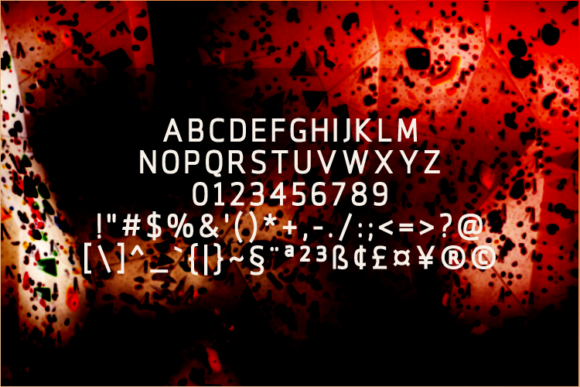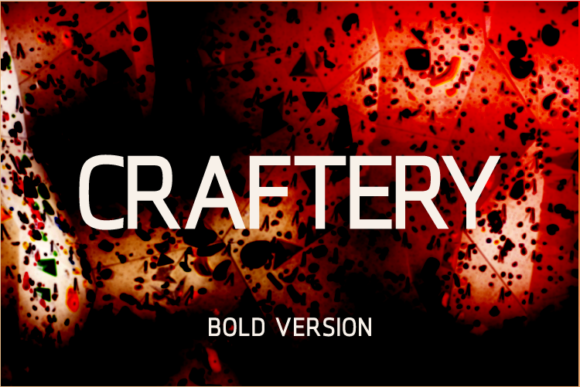
Craftery Bold Font: Elevate Your Design with a Touch of Modern Simplicity
In the world of design, fonts play a pivotal role in conveying messages, evoking emotions, and creating aesthetic appeal. For designers, crafters, and anyone looking to make a statement with their visual projects, the choice of font can make all the difference. This is where the Craftery Bold Font comes into play—a modern sans serif font that draws inspiration from the elegance of classic geometric shapes. With its clean lines and minimalist feel, Craftery is poised to revolutionize the way we approach design.
The Essence of Craftery Bold Font
Craftery is not just another font; it’s an experience. It’s about simplicity, modernity, and the beauty of geometric shapes stripped down to their essence. This font is perfect for those who appreciate the minimalist approach to design without compromising on impact. Whether you’re working on a branding project, crafting a unique logo, or simply looking for a font that speaks modernity, Craftery is your go-to choice.
Key Features of Craftery Bold Font
- Modern Sans Serif Design: Craftery boasts a contemporary sans serif design that ensures your text is readable and stylish across various platforms.
- Geometric Inspiration: Drawing from the simplicity and elegance of geometric shapes, Craftery brings a unique flair to your designs.
- Minimalist Aesthetic: Achieve a clean and minimalist look with Craftery, making it perfect for designs that require a subtle yet impactful touch.
- Versatility: From logos and branding to digital content and print materials, Craftery can elevate a wide range of design projects.
Why Choose Craftery Bold Font?
In a sea of fonts, why should Craftery be your choice? The answer lies in its versatility and timeless appeal. Here are a few reasons why Craftery stands out:
- Universal Appeal: Its geometric and minimalist design gives Craftery a universal appeal that can cater to a wide audience and various design contexts.
- Easy to Read: Despite its modern and minimalist design, Craftery maintains high readability, making it suitable for both digital and print media.
- Customization: Craftery can be easily customized to fit your project’s tone and style, offering flexibility in size, color, and more.
Applications of Craftery Bold Font
The applications of Craftery are as versatile as its design. Here are some areas where Craftery can make a significant impact:
- Branding and Logos: Create memorable and impactful logos and branding materials with a font that stands out.
- Digital Content: Enhance your website, blog, or social media content with a modern and clean font that captures attention.
- Print Materials: From business cards to posters and brochures, Craftery can add a touch of modern simplicity to your print materials.
- Packaging: Make your product packaging stand out with a bold and minimalist font that communicates your brand’s aesthetic.
Craftery Bold Font is more than just a typeface; it’s a design statement. With its modern sans serif design inspired by geometric shapes, it brings a fresh and minimalist feel to the world of typography. Whether you’re a designer, crafter, or simply someone who appreciates the beauty of simplicity in design, Craftery is an excellent choice for elevating your projects. Embrace the power of modern simplicity with Craftery and let your designs speak volumes with elegance and style.